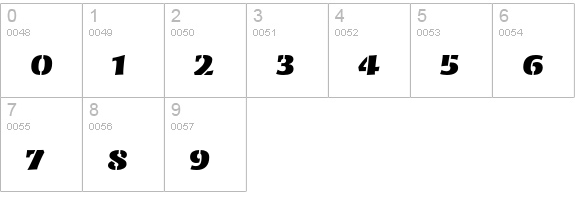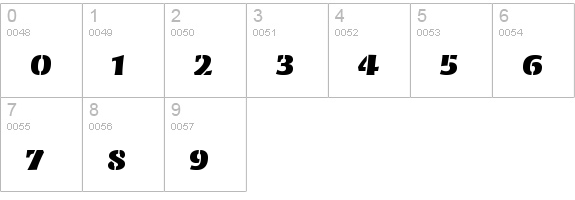
Conga Brava Stencil Std Black is a maximum-weight, dramatic variant in the Conga typeface family \xE2\x80\x94 well suited to maximum-impact headlines, posters, and packaging.
Conga Brava Stencil Std Black font is a bold and striking typeface that exudes confidence and modernity. Its strong and geometric design makes it perfect for headlines, posters, and branding projects that require a bold statement. The stencil effect adds a unique touch, giving your designs a contemporary edge. This versatile font is free to download at FontsMarket.com, making it easily accessible for designers and creatives looking to add a touch of boldness to their projects. Whether you're working on a sleek advertising campaign or a cutting-edge editorial layout, Conga Brava Stencil Std Black font is sure to make a powerful impact. Elevate your designs with this dynamic and eye-catching typeface that will captivate your audience and leave a lasting impression.